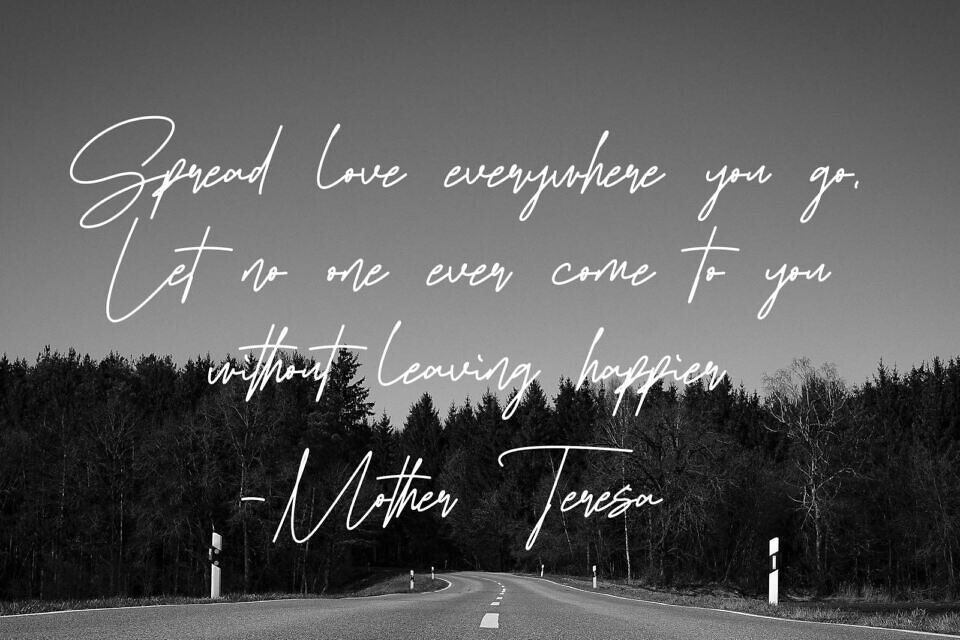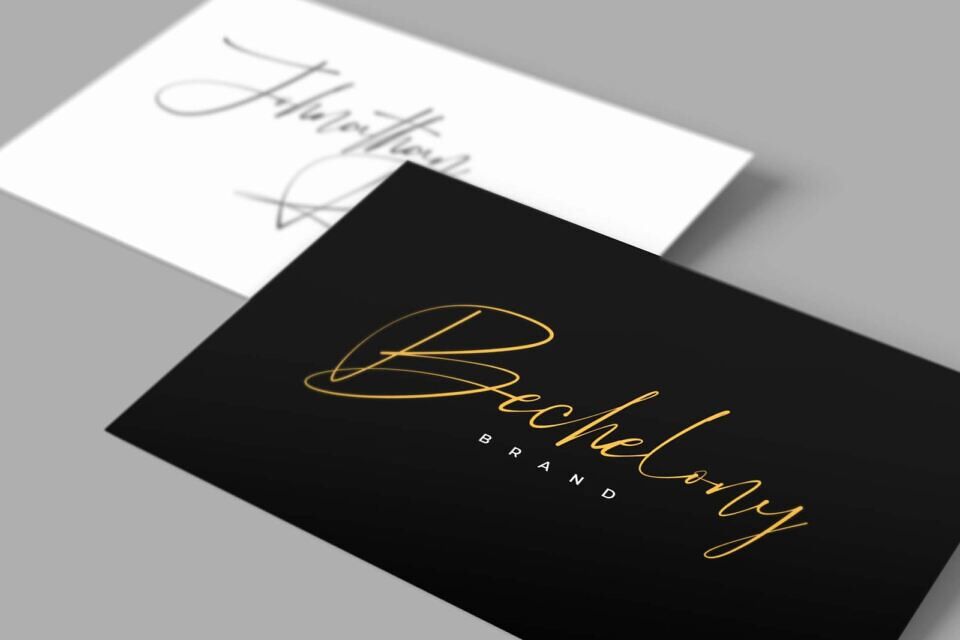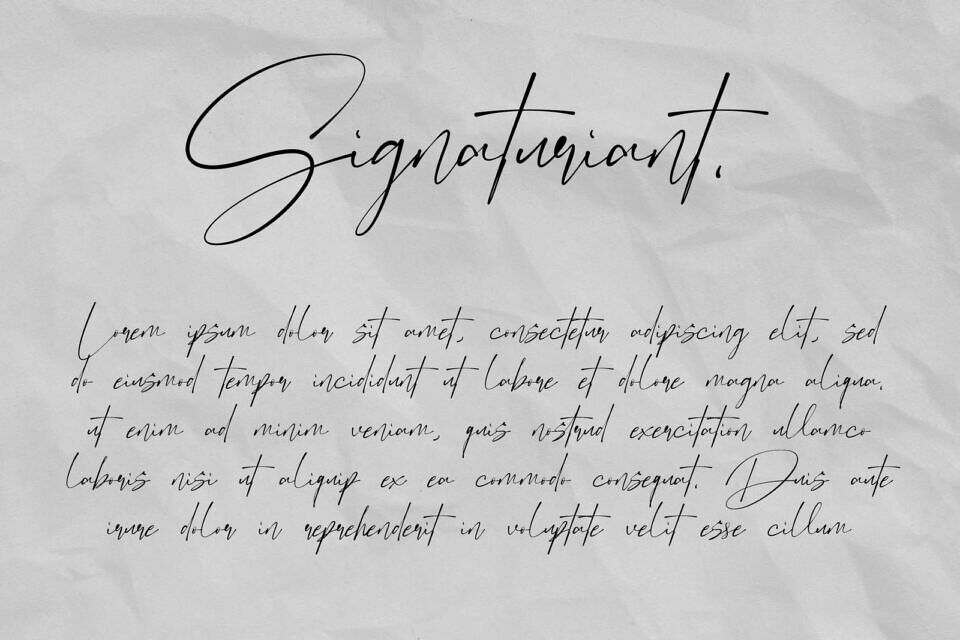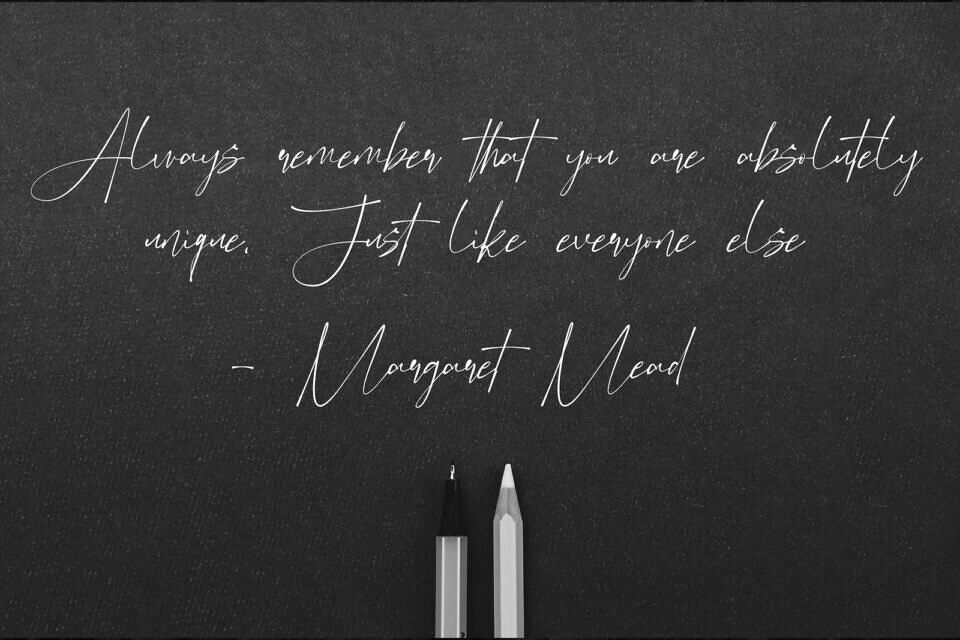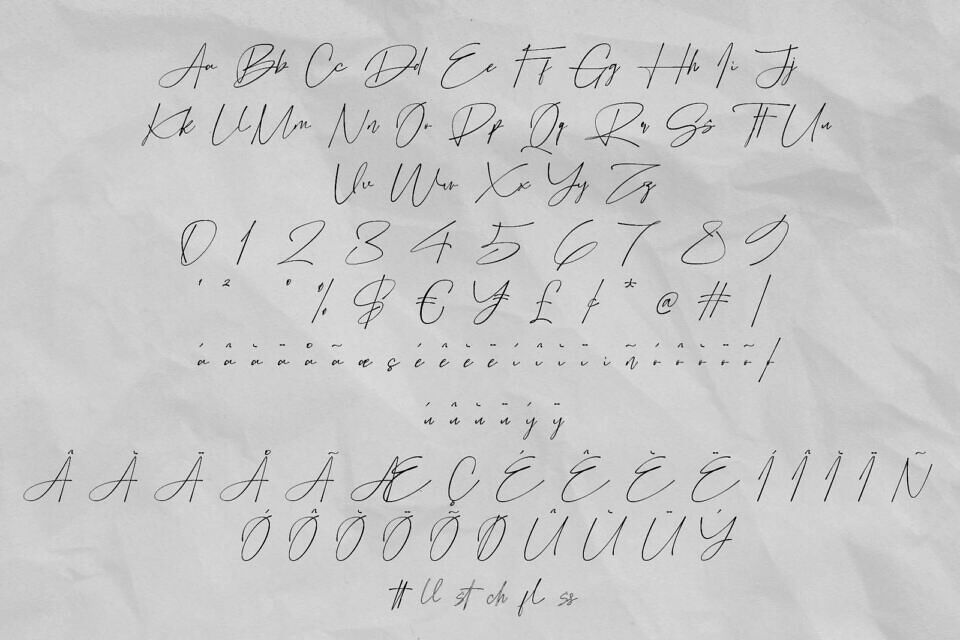
Dekonista is a font with a stylish signature style. Suitable for branding, social media, products, advertisement, and so on. Contains standard English letters, numbers, punctuation, and several accents that support multilingualism.